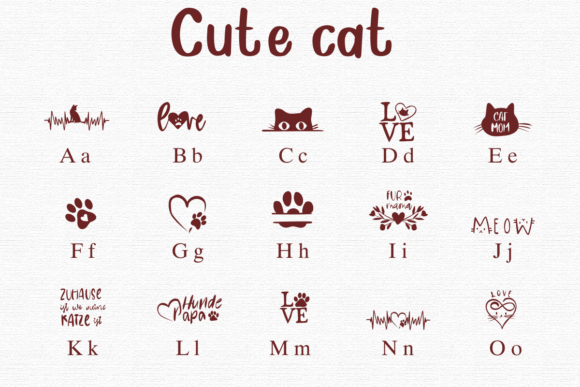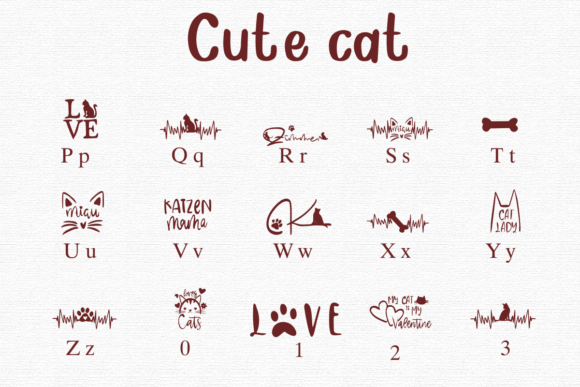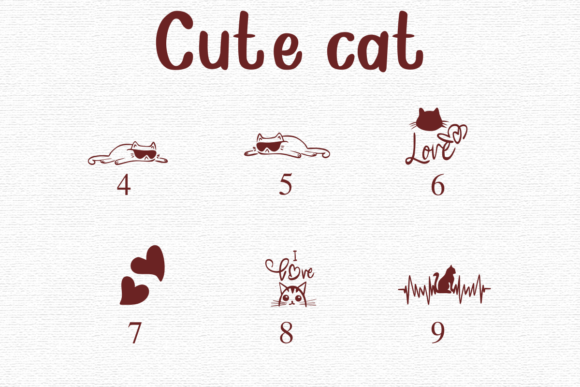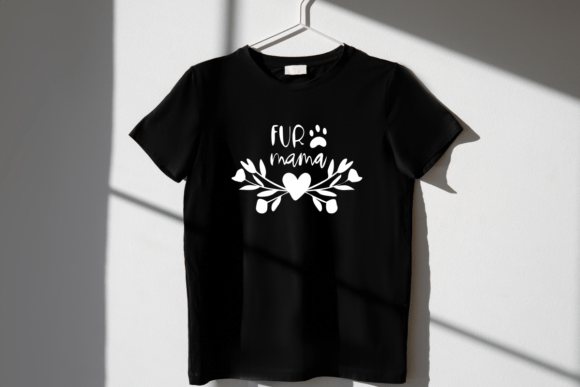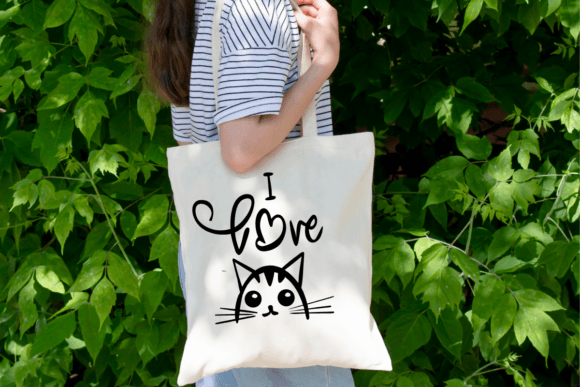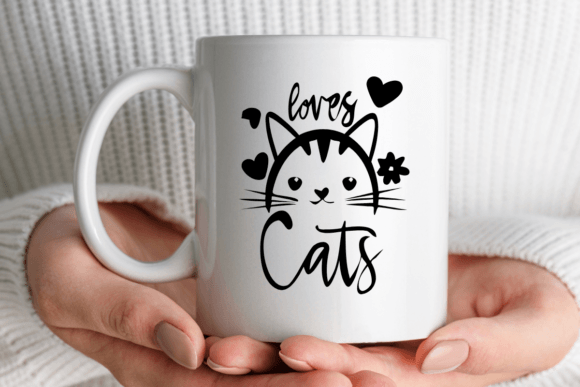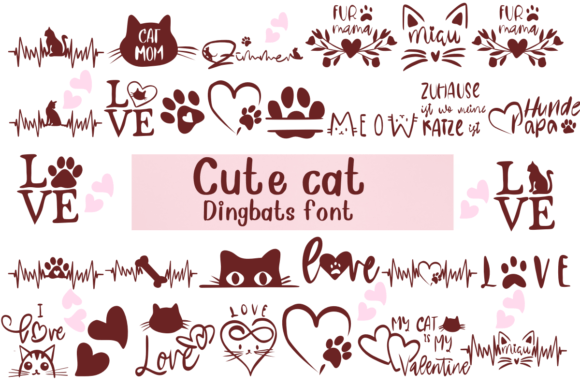
Cute Cat Font: Add a Playful Touch to Your Designs with Adorable Feline Charm
Are you a designer or crafter looking for a fun and playful way to add some personality to your projects? Look no further than the Cute Cat font! This delightful dingbats font features adorable cat illustrations and charming cat quotes that are purr-fect for adding a sprinkle of feline charm to any design.
What is the Cute Cat Font?
The Cute Cat font is a unique and whimsical dingbats font that showcases a collection of cute cat illustrations and quotes. Each character in the font is carefully designed to capture the playful and affectionate nature of cats, making it an ideal choice for designers and crafters who want to add a touch of personality to their work.
Features of the Cute Cat Font
The Cute Cat font comes with a range of features that make it a must-have for designers and crafters. Some of its key features include:
• Adorable cat illustrations: The font features a range of cute cat illustrations, from playful kittens to sassy felines.
• Charming cat quotes: The font includes a collection of charming cat quotes that are sure to delight cat lovers.
• Playful and whimsical design: The font has a playful and whimsical design that is perfect for adding a touch of personality to any project.
• Easily customizable: The font is easily customizable, allowing you to adjust the size, color, and style to suit your design needs.
Uses for the Cute Cat Font
The Cute Cat font is versatile and can be used for a range of design projects, including:
• Stationery and greeting cards: Add a playful touch to your stationery and greeting cards with the Cute Cat font.
• Social media graphics: Use the font to create eye-catching social media graphics that are sure to delight your followers.
• Digital art and illustrations: The font is perfect for adding a touch of personality to your digital art and illustrations.
• Crafting and scrapbooking: Use the font to add a playful touch to your crafting and scrapbooking projects.
Why Choose the Cute Cat Font?
There are many reasons why you should choose the Cute Cat font for your design projects. Here are just a few:
• Unique and eye-catching: The font is unique and eye-catching, making it perfect for designers and crafters who want to stand out from the crowd.
• High-quality design: The font has a high-quality design that is sure to impress.
• Perfect for cat lovers: The font is perfect for cat lovers who want to add a touch of feline charm to their designs.
In conclusion, the Cute Cat font is a fun and playful dingbats font that is perfect for designers and crafters who want to add a touch of personality to their projects. With its adorable cat illustrations and charming cat quotes, this font is sure to delight cat lovers and add a sprinkle of feline charm to any design. So why not give it a try and see how it can enhance your designs?